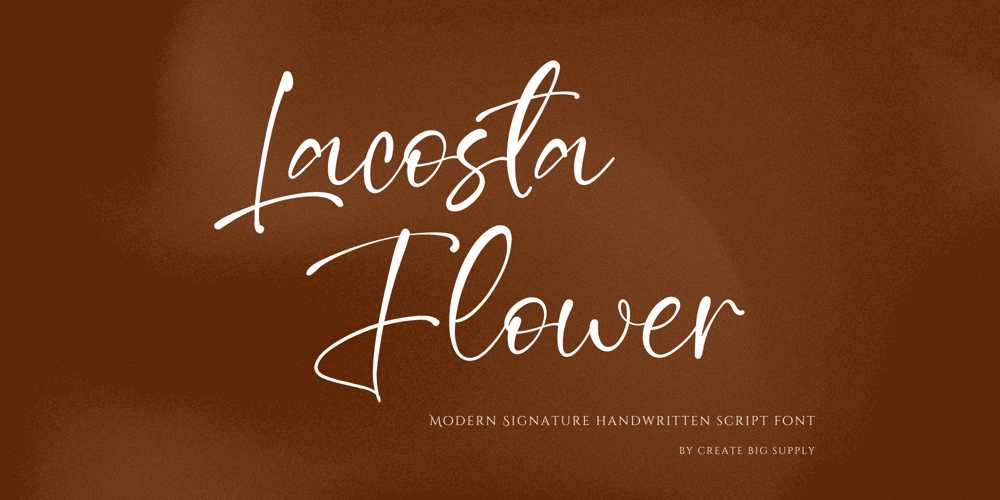
Lacosta Flower Font Family was designed by Irpan Maulana and published by Create Big Supply. Lacosta Flower contains 1 styles and family package options. Discover Lacosta Flower, a captivating Signature Handwriting Script Font that brings elegance and a personal touch to your designs. With its flowing lines and charming handwritten style, this font is perfect for creating stunning signatures, logos, and more. The combination of uppercase and lowercase letters, along with numbers and punctuations, provides versatility for your design needs. Lacosta Flower is a multilingual font, ensuring your message can be conveyed to a global audience. Enjoy the convenience of ligatures and PUA encoding, allowing easy access to special characters and glyphs. Explore the full-character set of Lacosta Flower and add a touch of sophistication to your projects.